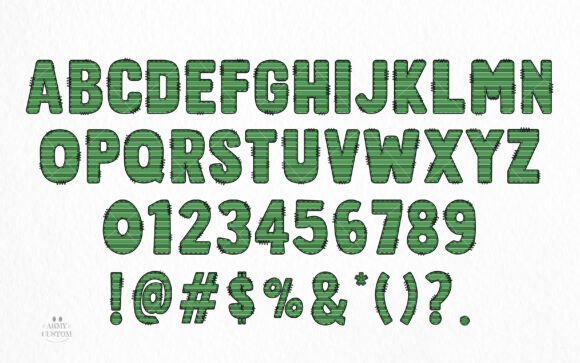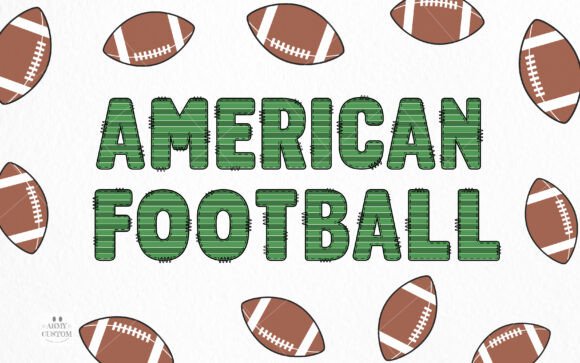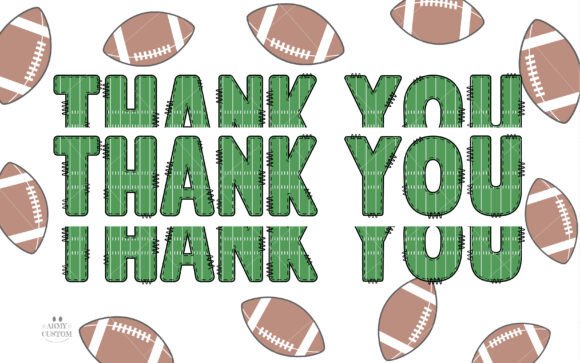
The Ultimate Game-Day Typography
Do you remember the rush of excitement as you watched your favorite football team score a touchdown, the crowd erupting in cheers as the referee raised his arms in triumph? For many of us, American football is more than just a sport – it’s a way of life. And what better way to capture that spirit than with a font that embodies the very essence of the game?
Enter the American Football Field Font, a game-changing typographic experience that combines the thrill of the gridiron with the art of design. Conceived with passion and creativity, this font is the perfect tool for designers looking to add a touch of athletic flair to their projects. With its bold, dynamic letters, the American Football Field Font is a must-have for anyone seeking to communicate strength, agility, and unyielding spirit – the very qualities that make American football so beloved.
American Football Field Font Key Features
- Font Family: The font family is specifically designed to mimic the aesthetic of American football fields, with unique characteristics such as yard lines, goalposts, and end zones.
- Unique Characteristics: The font features custom-designed characters that resemble the gridiron pattern of an American football field, making it a unique and eye-catching choice for designs related to sports or American culture.
Designer Review: American Football Field Font
Overall, I think the American Football Field Font is a solid choice for anyone looking for a font that captures the essence of the sport. ✨ One of its strongest features is its ability to evoke a sense of nostalgia and classic Americana. The font’s bold, block-letter style is reminiscent of vintage signs and advertisements, which immediately transports me to a bygone era.
✨ The font also does a great job of conveying a sense of energy and dynamism, making it perfect for use in promotional materials, merchandise, and other applications where a high-energy vibe is desired. Additionally, the font’s versatility allows it to be used in a variety of contexts, from sports branding to fashion and beyond.
However, I do have a few reservations about the font. ⚠️ Firstly, the font’s block-letter style can make it difficult to read in certain contexts, particularly at small sizes. Additionally, the font’s limited character set may make it less suitable for use in applications where a wide range of characters are required.
- Limited character set
- Difficulty reading at small sizes
While the American Football Field Font has its limitations, I believe it is a great choice for anyone looking for a font that captures the spirit of the sport. With a bit of creative planning and execution, this font has the potential to be a real game-changer.
Use the American Football Field Font to create eye-catching designs for sports-themed events, merchandise, and marketing materials.
Combine the font with other graphics and images to create a visually appealing design.
The American Football Field Font is ideal for:
- Sports-themed event invitations and promotional materials.
- Football team logos and branding materials.
- Merchandise, such as t-shirts, hats, and water bottles.